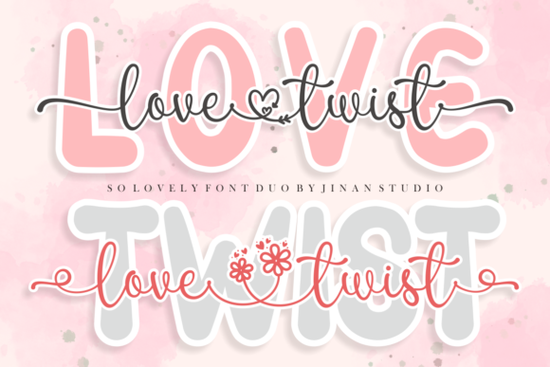
If you're looking for a clean, romantic font pairing that works just as well on a hand-lettered wedding invitation as it does on a minimalist tote bag design, the Love Twist Duo Font is worth your attention. It’s a thoughtfully designed duo script and sans serif that balances elegance with readability. Unlike many script fonts that lean too ornate or too casual, this set feels intentional: soft but not fragile, stylish but never fussy. It’s especially helpful if you’ve ever struggled to pair a delicate script with something neutral enough to hold its own in headlines, quotes, or product labels.
What makes Love Twist Duo different from other script + sans combos?
First, it’s built for real use not just display. The script has gentle swashes and natural flow, while the companion sans serif is warm and slightly rounded, avoiding the cold stiffness of many geometric fonts. Both weights sit comfortably together without competing. And because it’s PUA encoded, you don’t need design software with advanced OpenType features to access alternate characters or swashes you’ll find them right in your glyph panel (in apps like Illustrator, Affinity Designer, or even Cricut Design Space).
This matters most when you’re designing for print-on-demand or small-batch crafts. You want flexibility without extra steps no hunting through layers or installing separate files. With Love Twist Duo, one download gives you both fonts, plus full language support for Western European languages, so you can confidently create greeting cards, mugs, wall art, or digital planners without unexpected rendering issues.
Where does it work best?
Think beyond “romantic” as just weddings or Valentine’s Day. This duo shines in contexts where warmth and clarity matter:
- Greeting cards especially birthday, anniversary, or sympathy designs where tone and legibility both count
- Small business branding think café menus, boutique packaging, or handmade soap labels
- Digital products printable quote posters, Canva templates, or planner stickers where contrast between script and sans helps guide the eye
- Craft projects vinyl decals, embroidery patterns, or hand-drawn-style SVGs for cutting machines
It pairs especially well with neutral backgrounds and soft color palettes think dusty rose, oatmeal, sage, or charcoal but doesn’t disappear against bolder hues either. If you’ve used Sunshine Olivia before and liked its airy charm, you’ll appreciate how Love Twist Duo adds more structure without losing lightness. Or if you prefer something with more personality than Penny Scribbles, this strikes a middle ground playful but polished.
How does it compare to other popular script fonts?
Compared to high-contrast scripts like Star Wars Font, Love Twist Duo is far more versatile for everyday design it won’t overwhelm a baby shower banner or get lost in small text. And unlike rustic-leaning options like Farmhouse Font, it avoids woodgrain associations, making it easier to adapt across seasons and styles. Even festive uses feel fresh: swap out red and green for terracotta and cream, and Jolly Christmas Script might feel too theme-bound, while Love Twist Duo stays quietly joyful.
It’s not meant to shout. It’s meant to settle in like a favorite sweater or a well-worn notebook. That quiet confidence is why designers returning to Creative Fabrica often reach for it again for client work, Etsy listings, or personal side projects.
- Check spacing in all-caps or mixed-case phrases some script fonts tighten up awkwardly after uppercase letters. Love Twist Duo handles transitions smoothly, but always preview in your final format.
- Use the PUA glyphs intentionally try swapping standard “&” or “a” for swash versions only where they add emphasis, not everywhere. Less is more with decorative characters.
If you value consistency across projects and want a duo that grows with your style instead of boxing you into one mood you’ll likely reach for Love Twist Duo again and again. It’s the kind of font that disappears into your work while still making it feel personal.